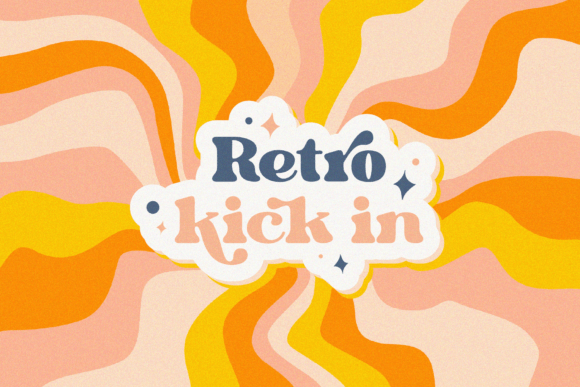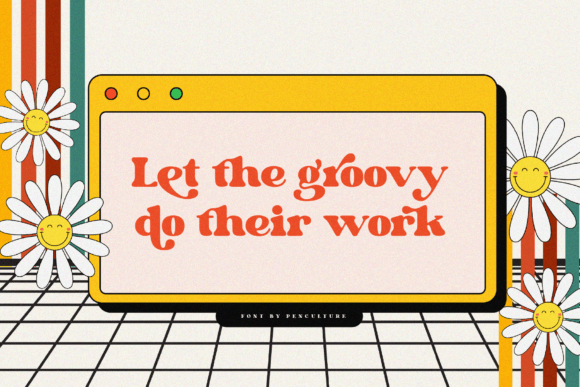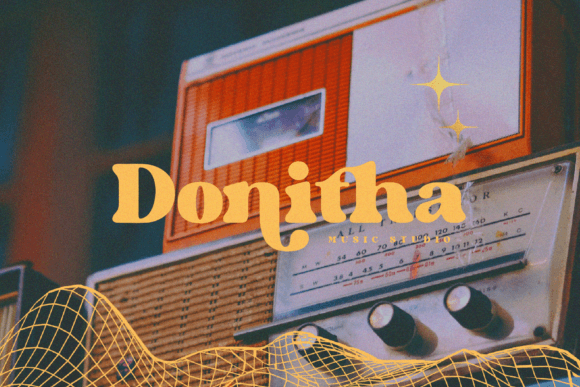
Introduction to Mango Crush Font
Have you ever been in a creative flow, surrounded by vibrant colors and eclectic patterns, where the perfect font pops up in your mind and sets the tone for your entire design project? For many designers, this moment is a sweet spot where inspiration meets creativity. And, if you’re one of them, you’re in luck because we’re about to dive into the world of the Mango Crush Font.
This retro serif font is a gem for designers, offering a unique blend of groovy vibes and smooth curves that will elevate your design projects to the next level. With its free download feature, it’s an excellent addition to any design resource library, perfect for branding, logo design, invitations, and even embroidery projects. Whether you’re working on a high-quality design or a simple yet impactful visual, the Mango Crush Font is sure to bring a touch of sweetness to your creative project.
Key Features of Mango Crush Font
- High-quality font with a unique, playful design that’s perfect for creative projects
- Designed to be highly legible and visually appealing, making it an excellent choice for titles, headings, and body text in creative projects
- Perfect for use in graphic design, digital art, and other creative endeavors where a unique and eye-catching font is desired
Honest Review: Mango Crush Font
As a designer, I’ve had the pleasure of working with a variety of fonts, and I’m excited to share my thoughts on the Mango Crush Font. This font has been a game-changer for my creative projects, and I’m eager to dive into the details.
- What works well:
- ✨ High-quality design: The Mango Crush Font is beautifully crafted, with a unique blend of modern and vintage elements.
- ✨ Easy to read: The font is incredibly legible, making it perfect for body text and headings.
- ✨ Versatile: The font is suitable for a wide range of creative projects, from branding to editorial design.
- Limitations:
- ⚠️ Limited character set: While the font is suitable for most projects, it may not be ideal for complex text-based applications.
Overall, I’m thoroughly impressed with the Mango Crush Font. It’s a valuable addition to any designer’s toolkit, and I highly recommend it as a free download for any design resource.
The Mango Crush Font is ideal for a variety of creative projects, including social media graphics, blog posts, and marketing materials. Its unique and stylish typography makes it perfect for designers looking to add a touch of elegance to their designs.